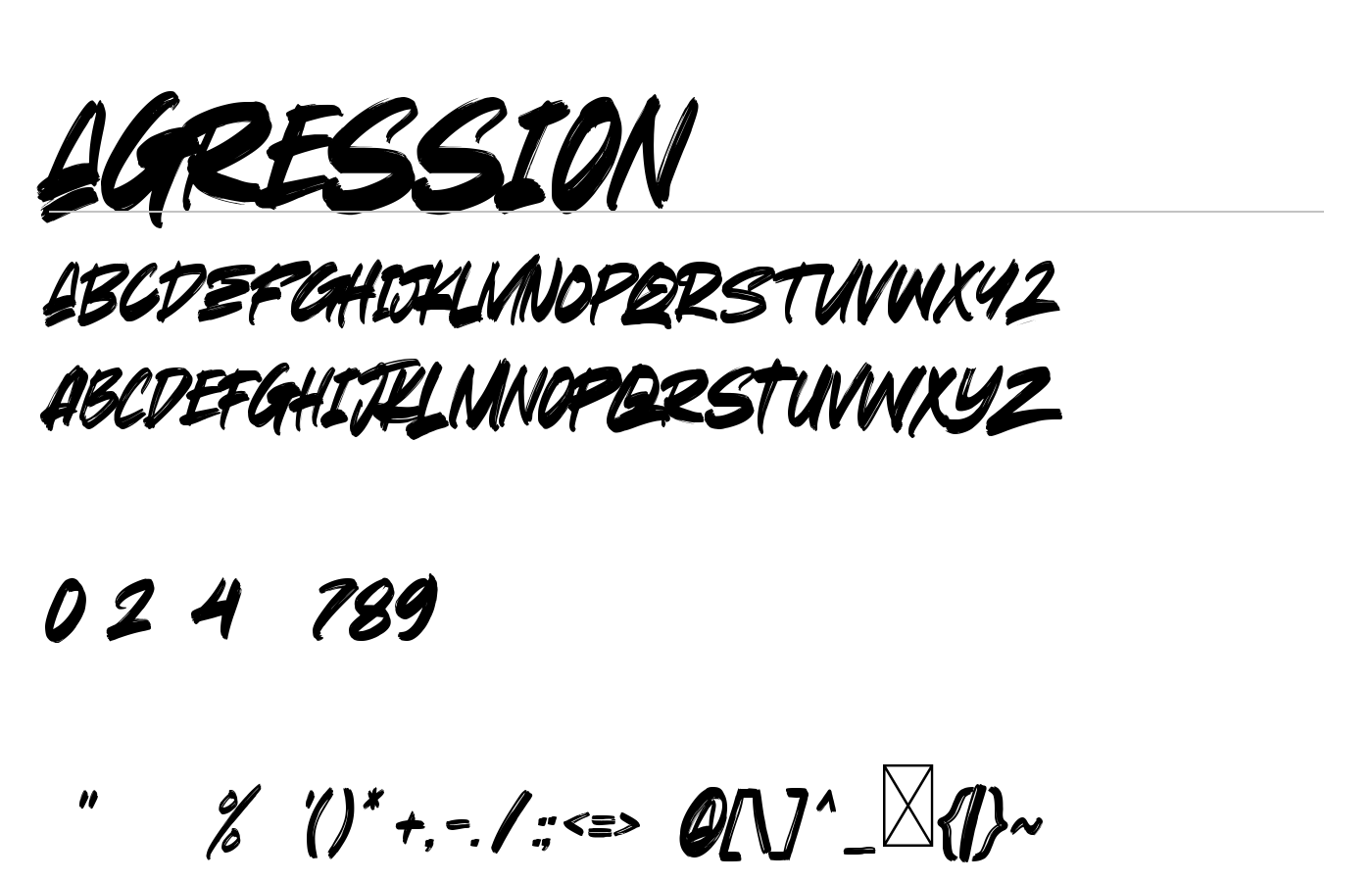
Agression Font is an energetic and bold brush script typeface that captures a raw, hand-painted style with aggressive strokes and uneven edges. Its dynamic, slightly condensed letterforms create a strong visual impact, ideal for designs that need to convey intensity and movement. This font is perfect for edgy branding, sports graphics, posters, and any creative project seeking a powerful and rebellious vibe.
Agression Font
About Agression Font